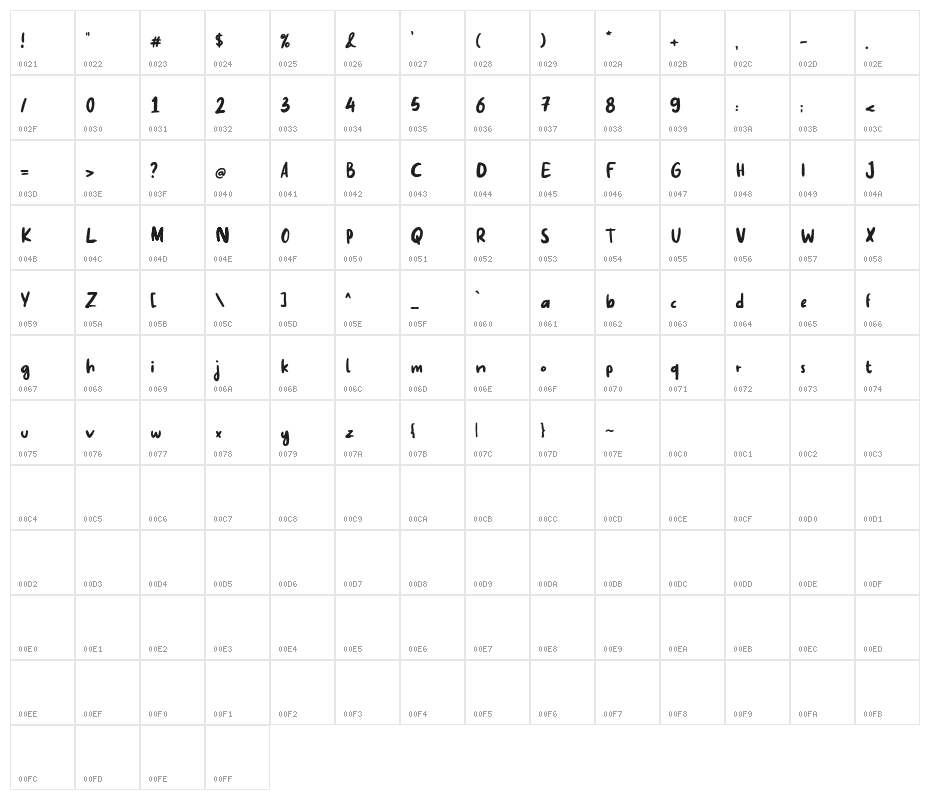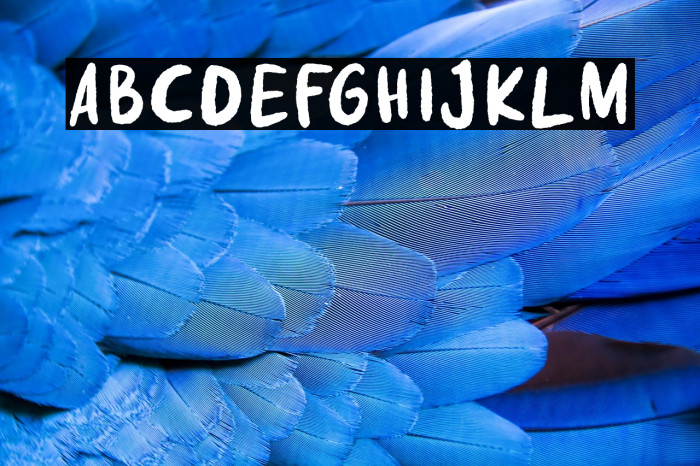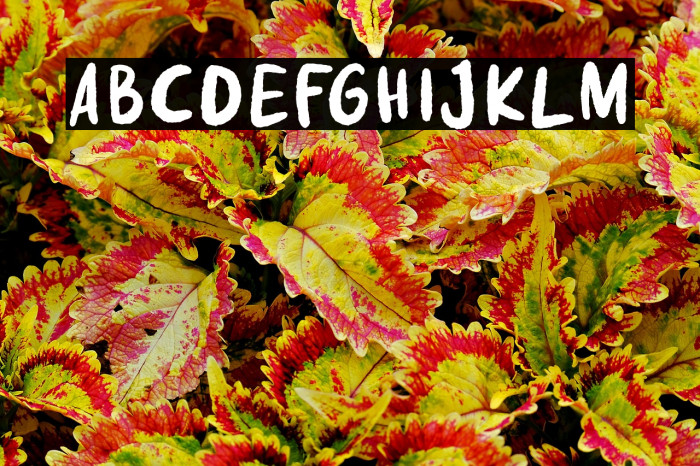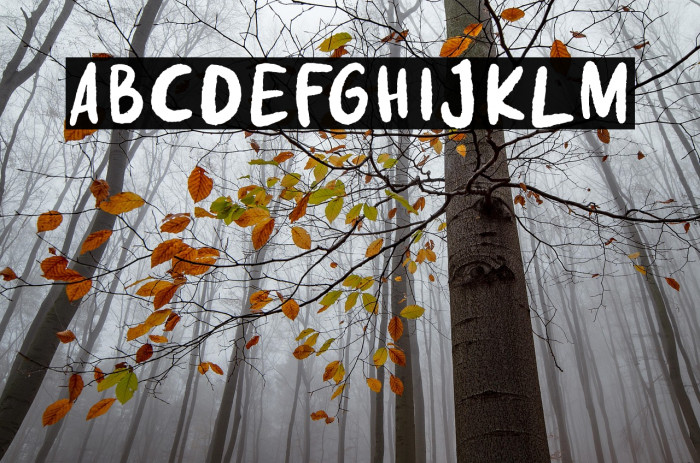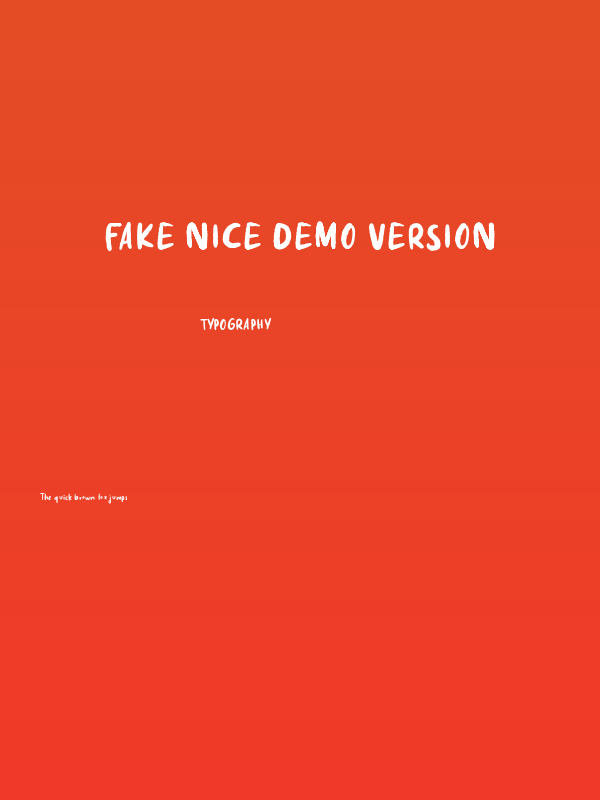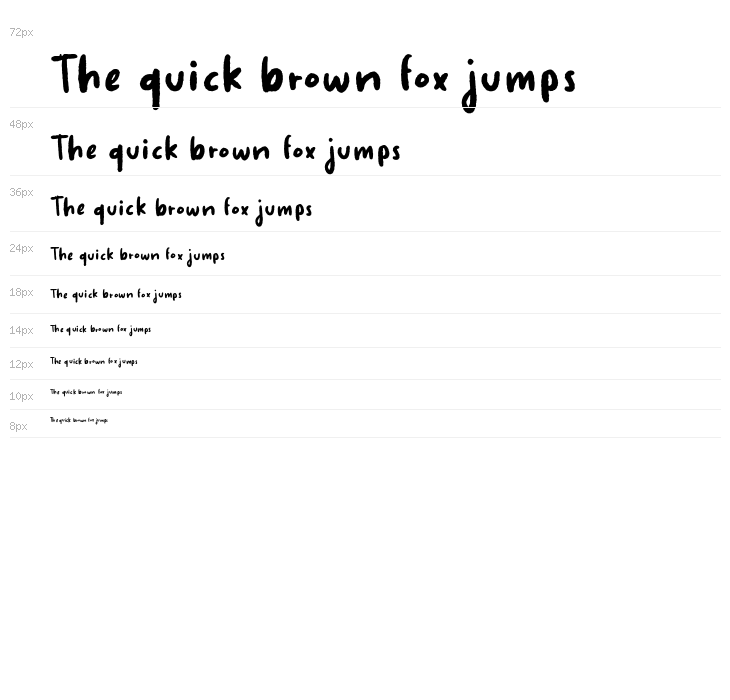
Fake Nice Demo Version Font
Fake Nice Demo Version Description
This font exudes a playful and casual vibe with its hand-drawn appearance. The letters are slightly irregular, giving it a natural and organic feel. The strokes are bold and rounded, which adds to its friendly and approachable character. The uppercase and lowercase letters maintain a consistent style, while the numerals and special characters complement the overall aesthetic. This font is perfect for projects that require a personal touch, such as invitations, greeting cards, or branding for creative businesses. Its unique style makes it stand out, while still being legible and versatile.
| Overall Style | Casual, Playful |
| Use Case | Headlines, Logos, Invitations |
| Proposed Projects | Ideal for invitations, greeting cards, creative branding, and personal projects. |